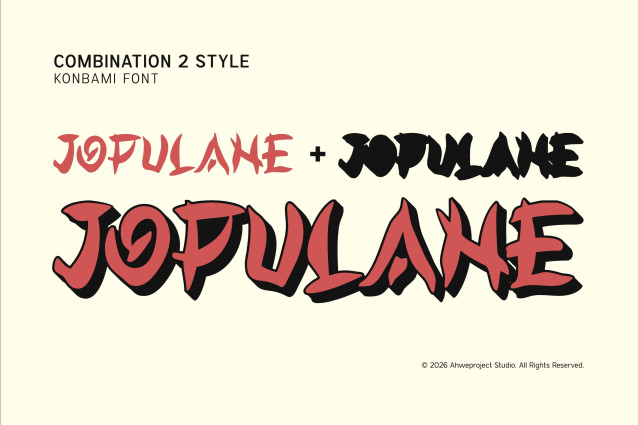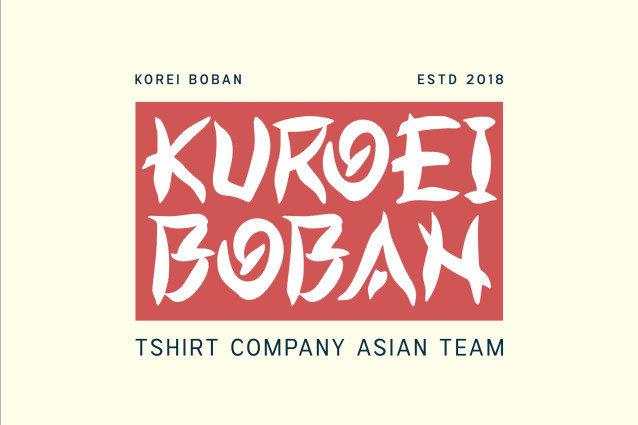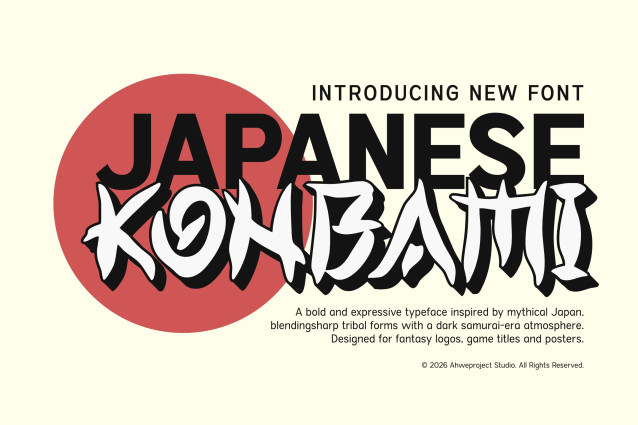
Konbami Font
Konbami Font is a bold Japanese-style display font with a strong, expressive, and powerful character. Inspired by mystical Japanese culture, the world of samurai, and modern tribal aesthetics, this typeface is designed to deliver instant visual impact.